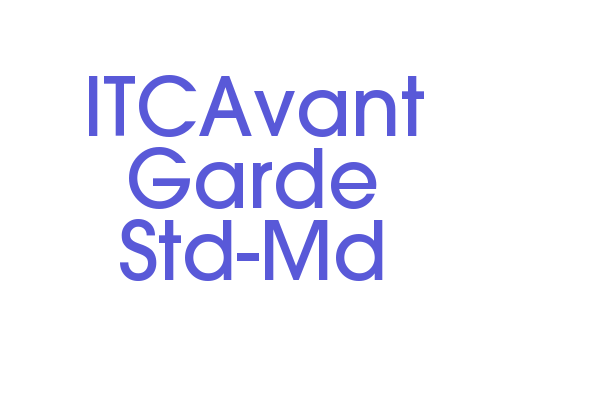
ITCAvant Garde Std-Md is a medium-weight sans-serif font from the ITC Avant Garde Gothic Std font family. Designed by Herb Lubalin and Tom Carnase, it offers a clean and modern look suitable for a wide range of design projects. This font is ideal for conveying a contemporary and professional aesthetic in branding, editorial design, and advertising.
Font Name: ITCAvant Garde Std-Md
Designer: Herb Lubalin and Tom Carnase
Font Family: ITC Avant Garde Std Md